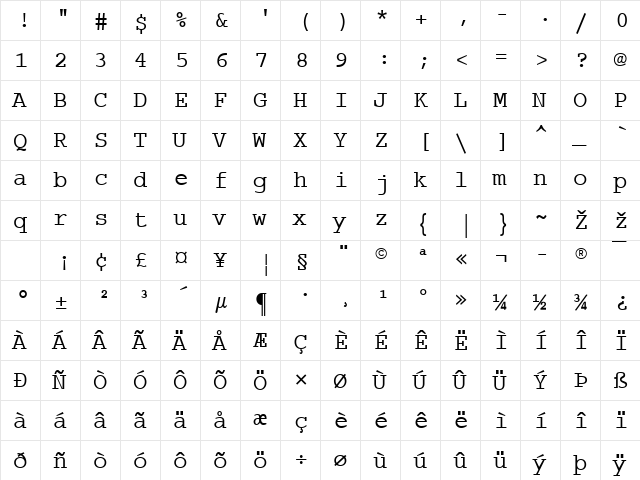
Dark Courier WPDOS Regular
Design Context for Dark Courier WPDOS Typeface
Dark Courier WPDOS uses fixed-width spacing throughout, giving it the structured, systematic character associated with coding environments and technical documentation.
Pro Tip: Use Dark Courier WPDOS with slightly increased line-height for extended reading — fixed-width spacing can feel dense in longer passages without extra breathing room.